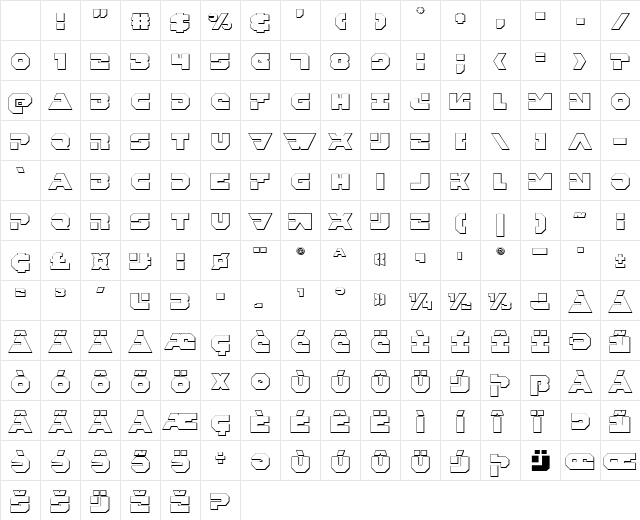
Trigger Man 3D Regular Free Font
Trigger Man 3D Regular
Trigger Man 3D Family
Design Context for Trigger Man 3D
Trigger Man 3D is a composed and adaptable typeface that performs quietly and consistently across a wide range of design contexts.
Pro Tip: Use Trigger Man 3D in both headline and body roles to test its range before committing to a single application.